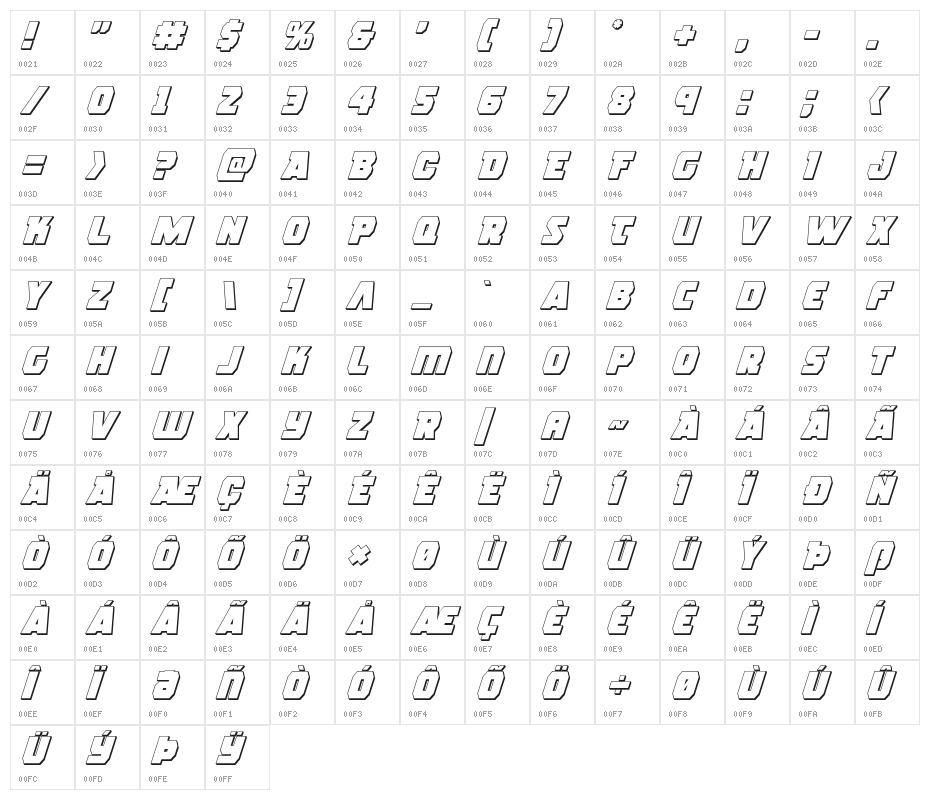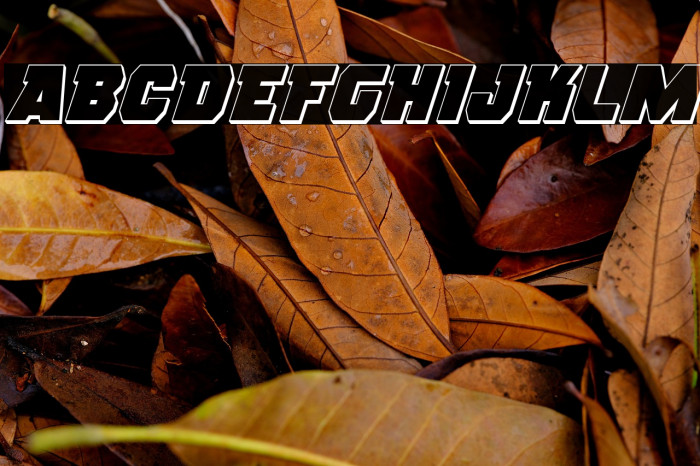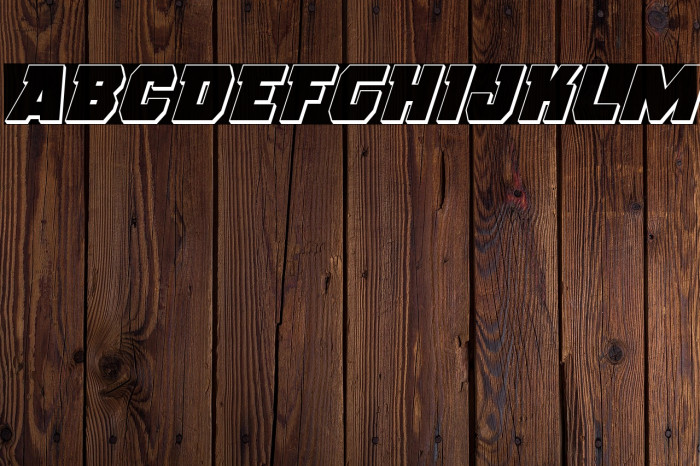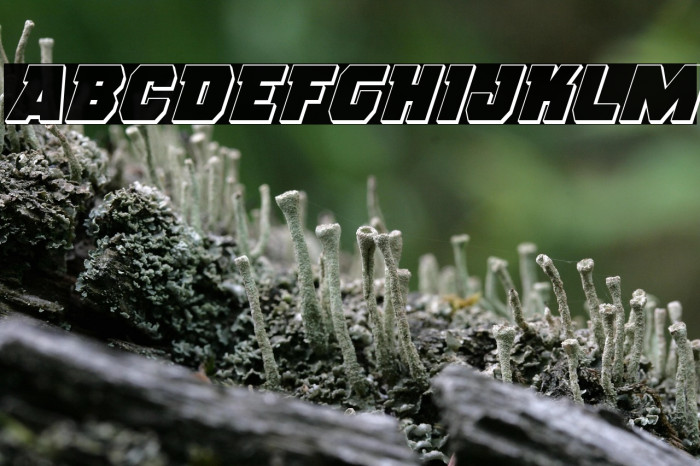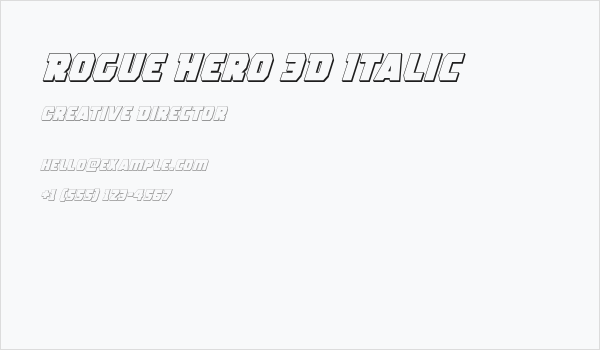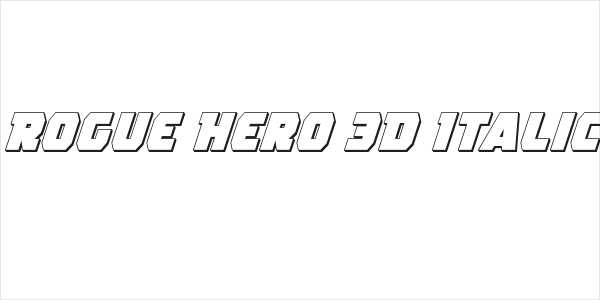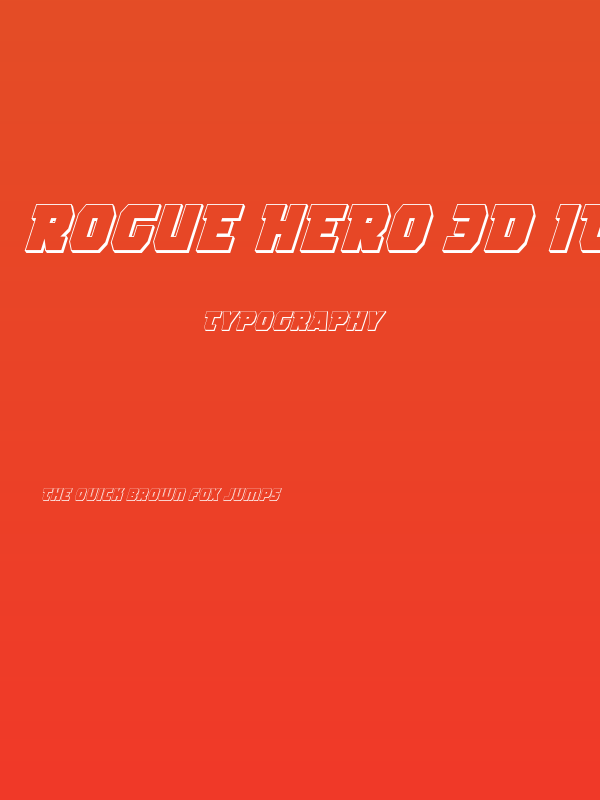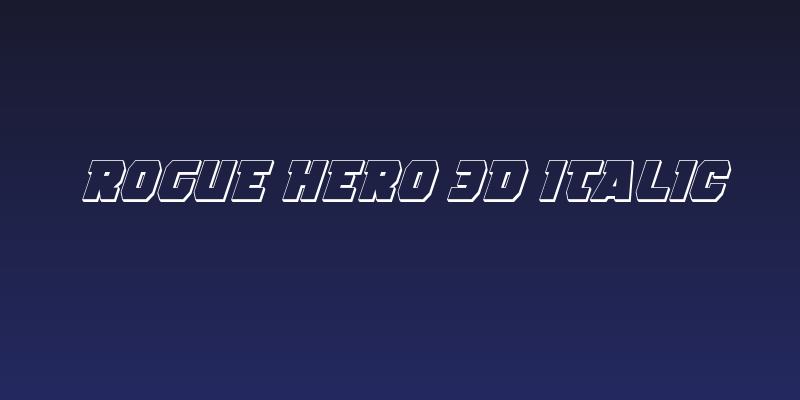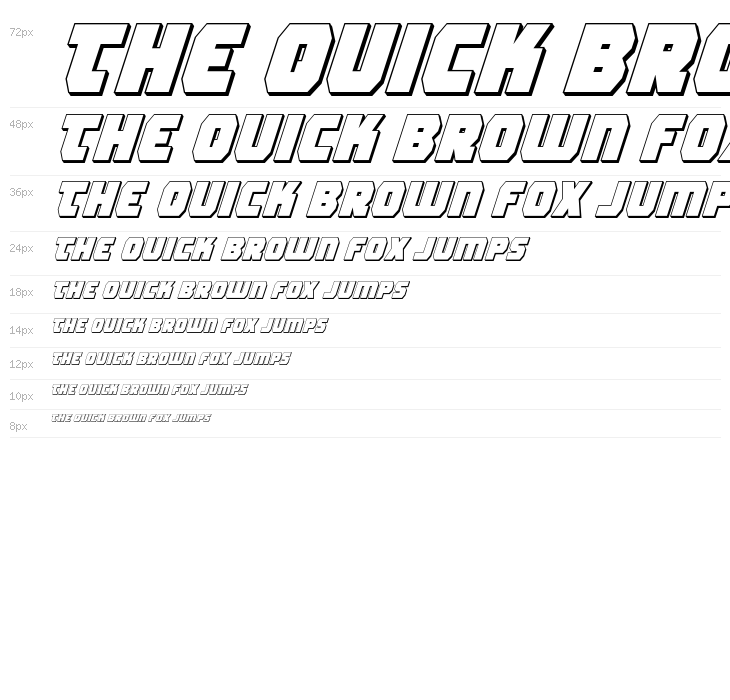
Rogue Hero 3D Italic Font
Rogue Hero 3D Italic Description
This font features a bold, three-dimensional design with a strong italic slant, giving it a dynamic and futuristic appearance. The characters are outlined, creating a striking visual effect that enhances their boldness. The geometric shapes and sharp angles contribute to a modern and edgy style, making it ideal for attention-grabbing headlines or logos. The uppercase and lowercase letters maintain a consistent style, while the numerals and special characters are designed to match the overall aesthetic. The font's unique 3D effect adds depth and dimension, making it stand out in any design project.
| Proposed Projects | Ideal for video game titles, movie posters, branding, and any project requiring a bold, futuristic look. |